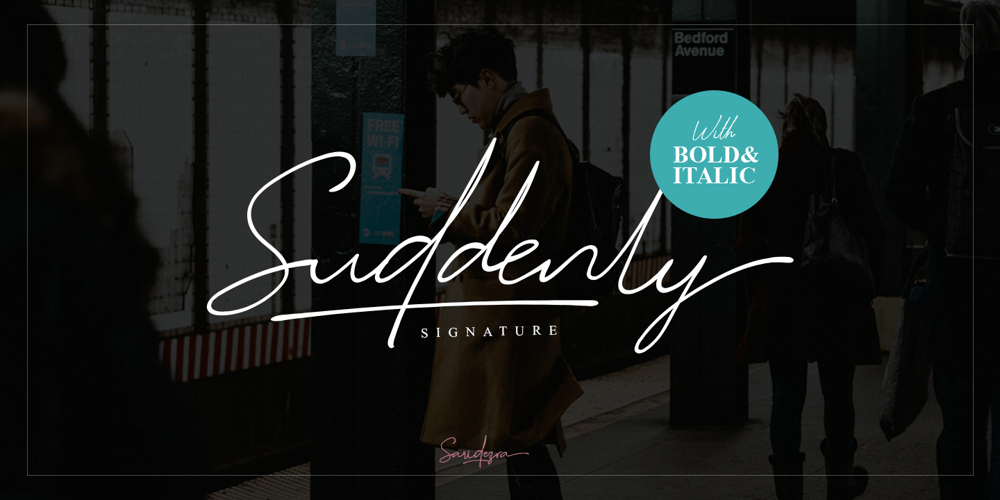
Suddenly Font Family was designed by Sarid Ezra and published by Sarid Ezra. Suddenly contains 3 styles and family package options. Suddenly classic signature family!Suddenly is signature script with three style that contain stylistic alternate, swash, etc to create your own customised signature or logo design. This font is also support multi language. It’s available in three style!For another questions, please send a mail to saridezra@gmail.com. Thank You!PS: Type underscore + number (from 1 to 5). Or copy Some_5thing in preview bellow..